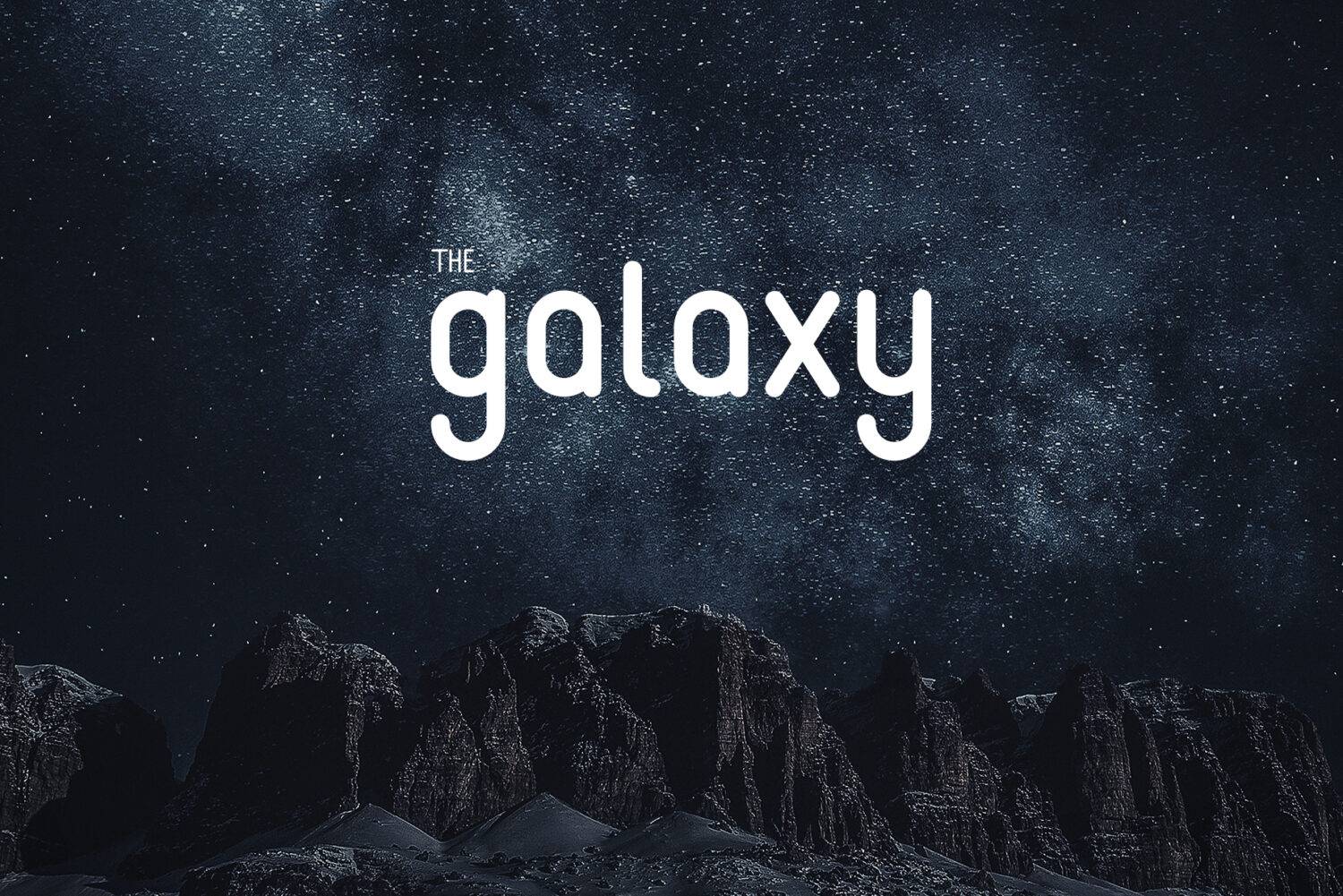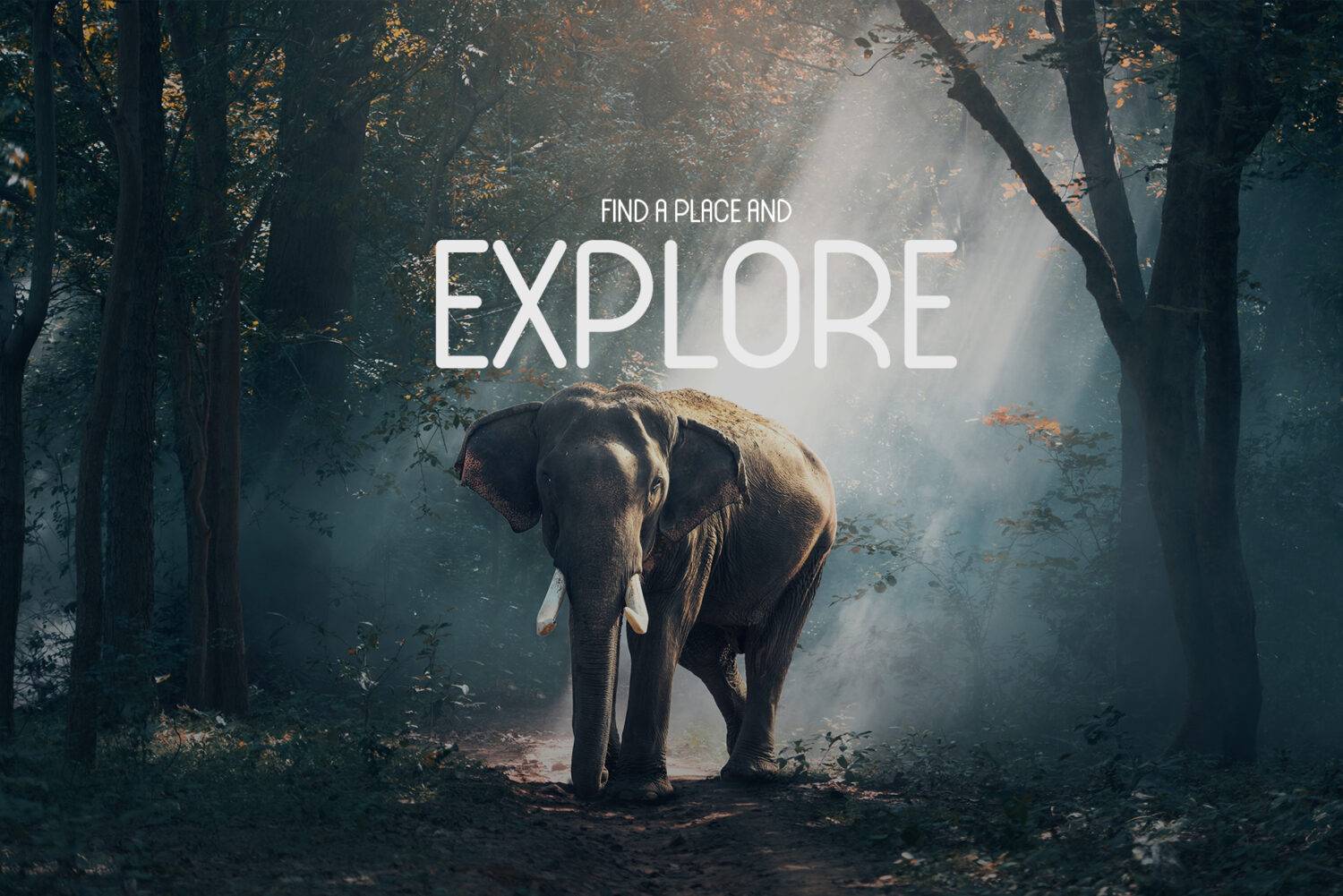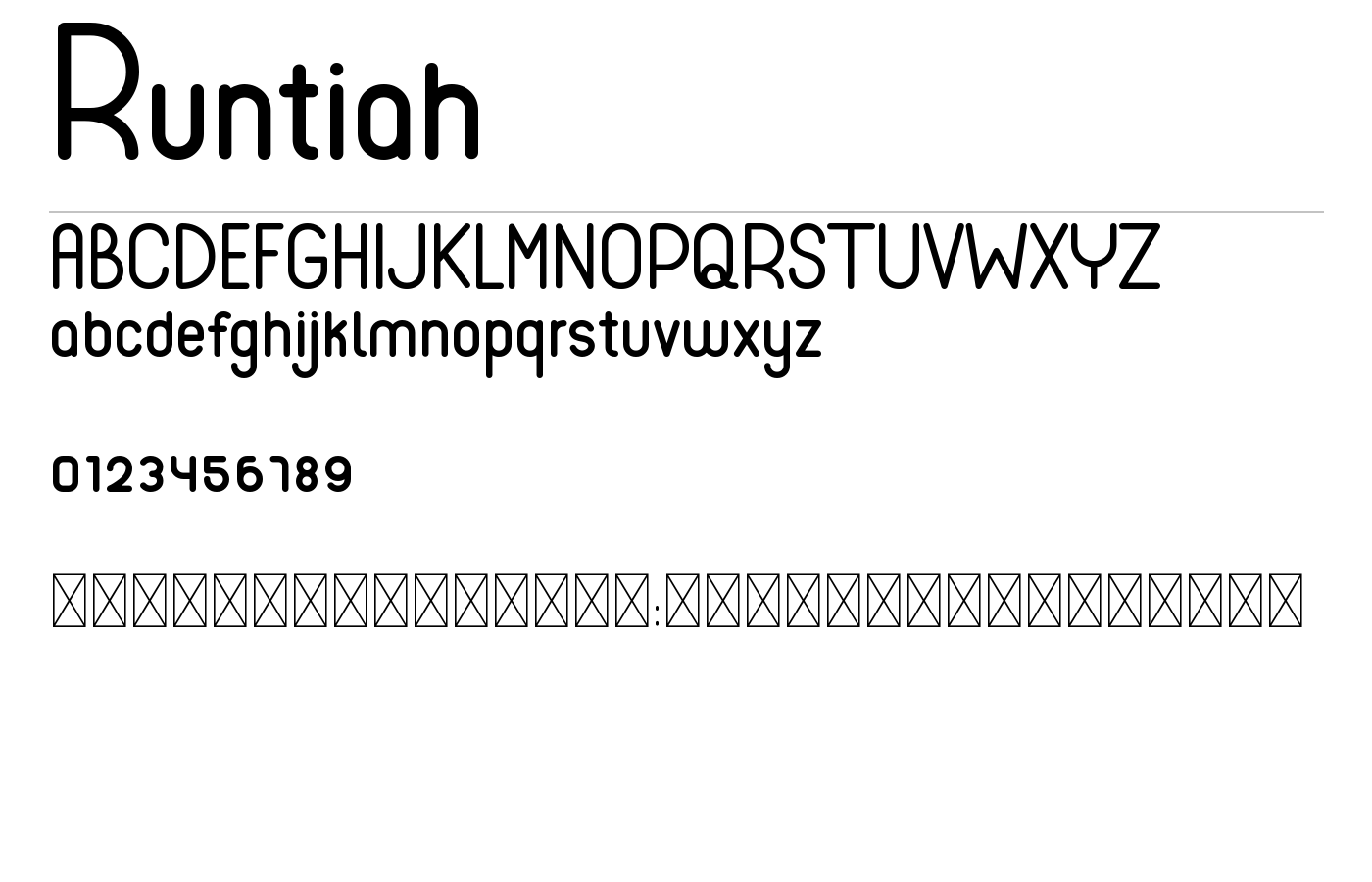
Runtiah is a modern, rounded sans-serif font with a friendly and approachable vibe, featuring a clean, uniform weight and slightly condensed letterforms that create a neat, efficient appearance. Its simple curves and monoline strokes lend it a playful yet professional character, making it ideal for branding, editorial headlines, and digital interfaces where clarity and warmth are desired. This font works well for projects aiming to balance professionalism with a touch of modern friendliness.
| Font family | Runtiah Font |
| Designer | Aidil Muladha |